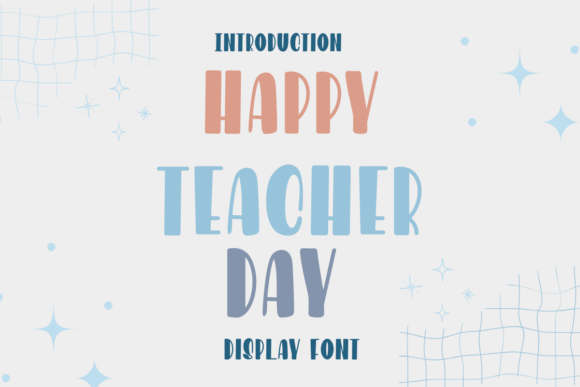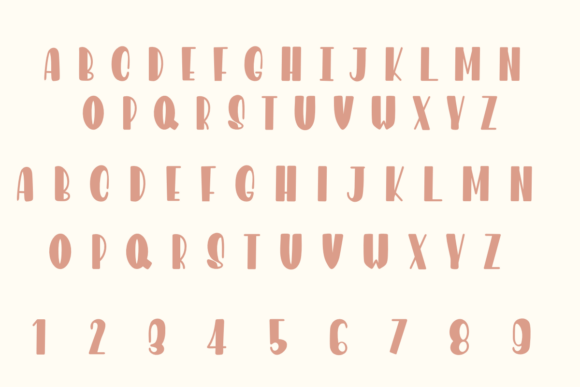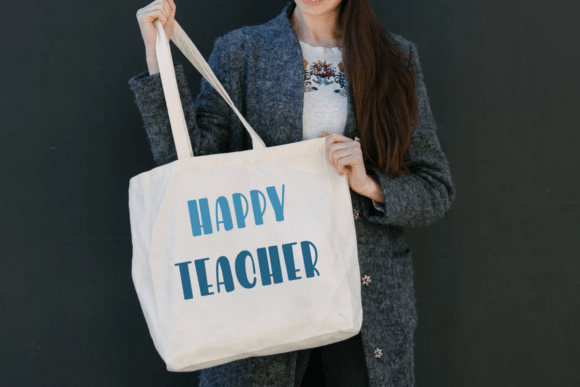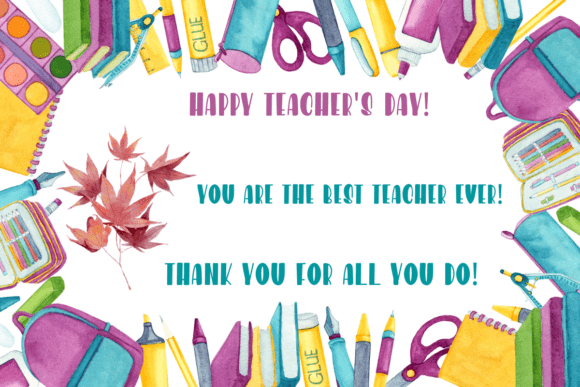
Happy Teacher Day Font
About the Happy Teacher Day Font
The Happy Teacher Day Font is here to transform your projects with its distinctive character and style. Happy Teacher Day is a cheerful and bold display font with a hand-drawn look that’s perfect for school-themed projects. Its playful and friendly letterforms bring a celebratory feel, making it great for cards, bulletin boards, printables, and classroom decorations. This font captures the joy of appreciation in a fun and creative way!
Its playful energy makes it ideal for projects requiring a friendly, approachable aesthetic. Consider using it for children’s books, invitations to school events, or branding for businesses targeting a younger demographic. However, its decorative nature makes it unsuitable for body text or UI elements where readability is paramount. Avoid using it for lengthy paragraphs or small sizes.
Happy Teacher Day Font pairs well with clean sans-serif fonts like Open Sans or Lato for a balanced contrast, providing readability where needed. For a more playful feel, consider pairing it with a rounded geometric sans-serif such as Poppins. Alternatively, a simple serif like Merriweather can add a touch of sophistication while maintaining the overall cheerful tone.
The font’s core personality is undeniably cheerful and celebratory, projecting a sense of fun and approachability. Its hand-drawn quality adds a unique, personal touch, suitable for projects that value authenticity and a handmade feel.
Happy Teacher Day Font Example